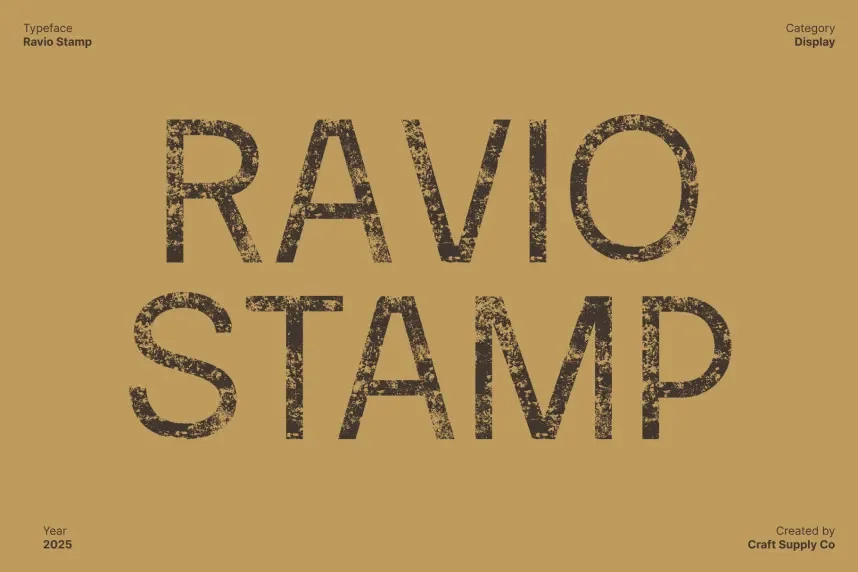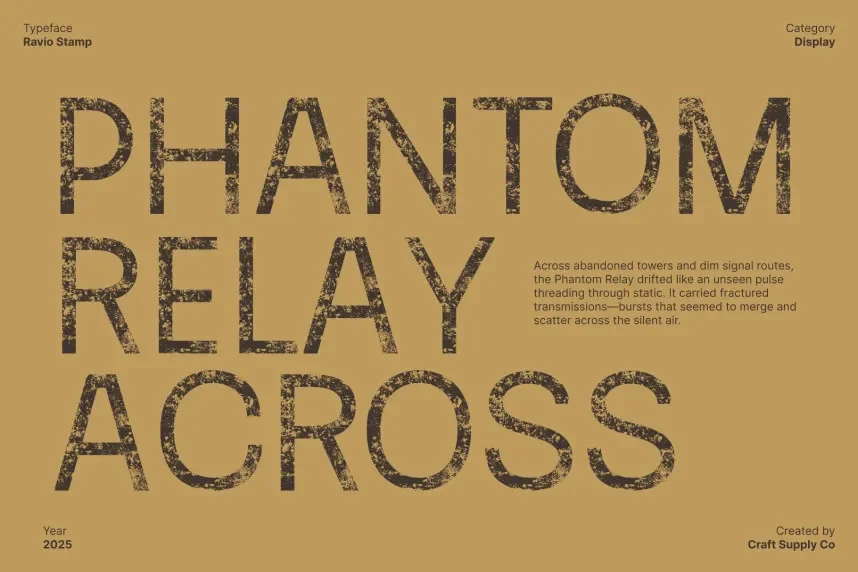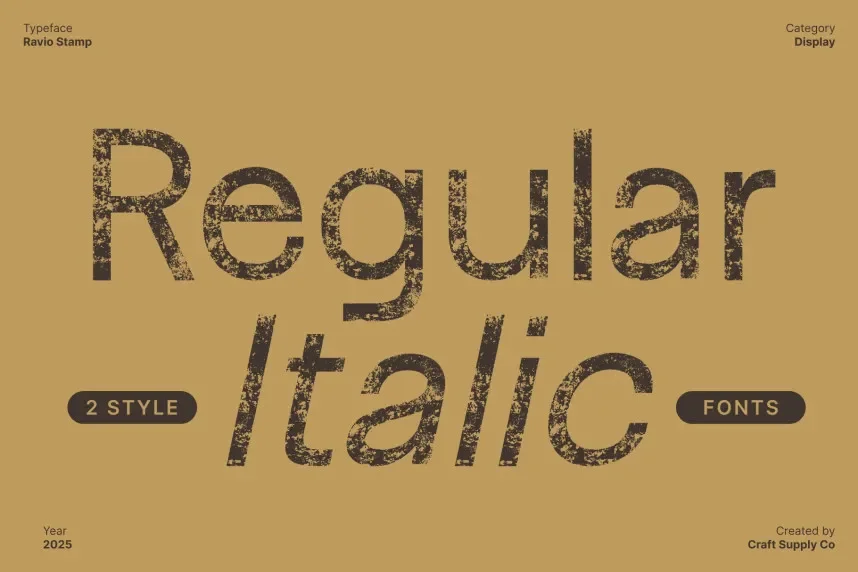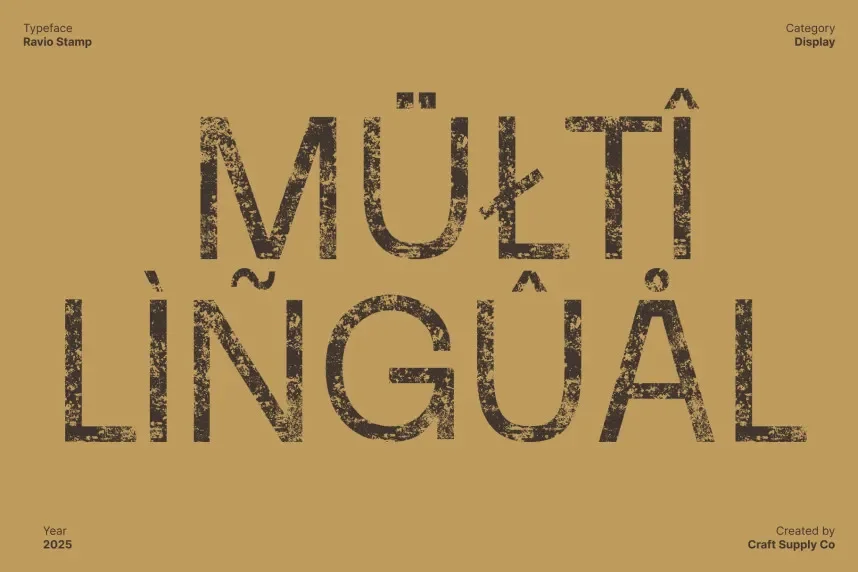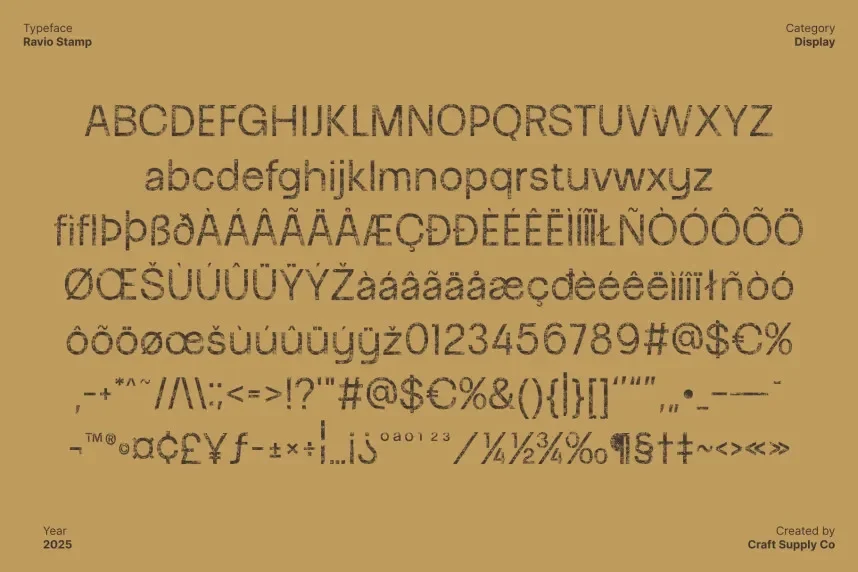
Ravio Stamp Font is a rough, hand-stamped font that brings an old-school, distressed feel to designs. It’s perfect for projects requiring strong visual presence with a vintage touch.
Ravio is a stamp-style font with thick, rough edges and irregular letterforms that provide a handcrafted, worn appearance. Its bold and textured strokes make it ideal for headlines and logos where a rugged, retro aesthetic is desired.